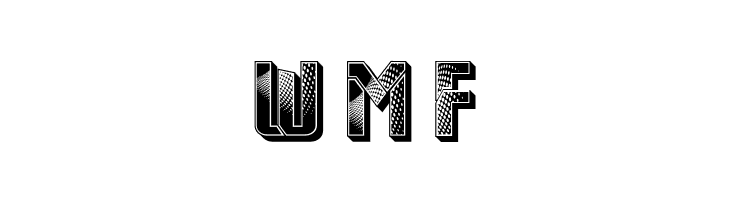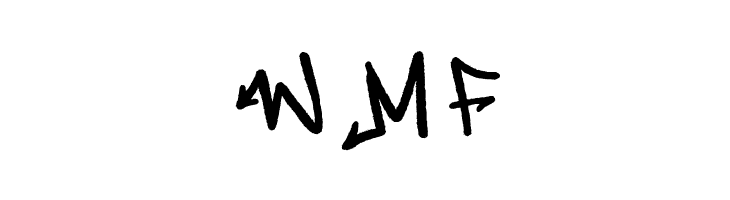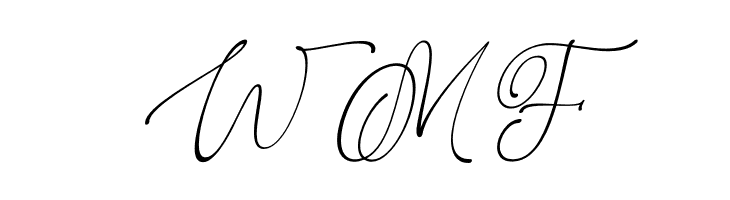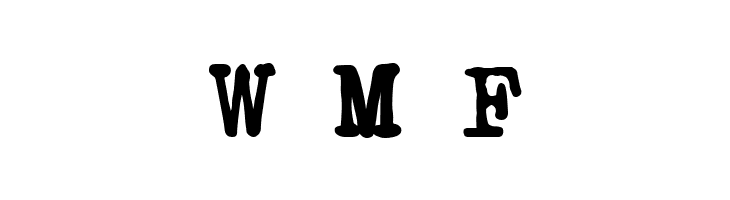
A decorative font with characters made from smaller text elements, offering a bold and textured look.
A bold, decorative font with thick, blocky letterforms and high contrast.
A bold, geometric font with a modern and structured appearance.
A bold, decorative font with a 3D effect and intricate patterns.
A bold, 3D font with playful, dynamic characters and shadow effects.
A playful, hand-drawn font with bold outlines and intricate patterns.
A bold, playful font with rounded, whimsical characters and decorative elements.
A decorative font with butterfly-like, ornate characters.
A bold, modern take on traditional blackletter with sharp, angular lines.
A playful, bold font with a cartoonish style and shadow effect.
A playful, bold, hand-drawn style font with a whimsical and casual feel.
A bold, playful outline font with a cartoonish and energetic style.
A playful, modern font with rounded, elongated letterforms and consistent stroke width.
A bold, playful, hand-drawn font with rounded, connected characters.
A bold, graffiti-inspired font with dynamic and angular letterforms.
A bold, brush-style font with a dynamic, handwritten appearance.
A bold, brush-stroke font with dynamic and artistic flair.
A bold, graffiti-inspired font with dynamic and artistic strokes.
A bold, dynamic brush script with expressive strokes and a hand-painted look.
A bold, playful handwritten font with brush-like strokes.
A playful, rounded font with smooth curves and a friendly appearance.
A playful and bold font with whimsical, irregular shapes.
A dynamic, cursive script font with fluid, connected letters and a graceful slant.
A bold, winter-themed font with snow-capped letters, perfect for festive designs.
A bold, playful outline font with rounded letterforms.
A bold, distressed font with a vintage letterpress style.
A bold, decorative font with flowing, interconnected strokes and a playful style.
A modern, geometric font with rounded edges and a futuristic style.
A graceful script font with flowing, ornate letters and high contrast strokes.
A bold, graffiti-inspired font with a playful and dynamic style.
A bold, jagged font with a horror-themed aesthetic.
A bold and ornate Blackletter font with intricate details and historical elegance.
A bold, playful handwritten font with a lively and energetic style.
A bold, gothic-style font with sharp, angular lines and a medieval influence.
A bold, vintage typewriter-style font with a mechanical and nostalgic feel.